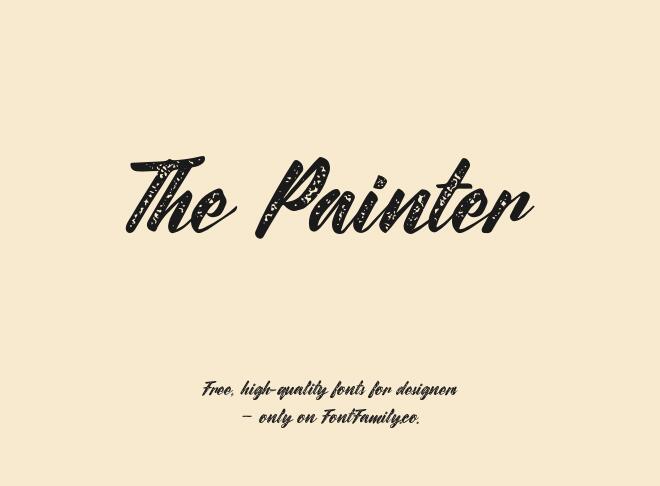
The Painter Font
The Painter Font, from the house of the Creative Foundry, is a delightful blend of script and handwritten styles. True to its name, it embodies the free-flowing strokes of a painter's brush, making it an ideal choice for design projects that require a playful and rustic aesthetic. This font is particularly suitable for branding, logos, posters, and packaging. The Painter Font is a free-to-use typeface that brings a unique, decorative touch to any design project. Its playful, rustic charm sets it apart from conventional script fonts, giving your designs a distinctive, eye-catching appeal. With its expressive brush strokes and hand-drawn quality, The Painter Font adds a personal, human touch to your designs, making them more engaging and relatable. Download The Painter Font today to infuse your designs with a fresh, creative vibe.